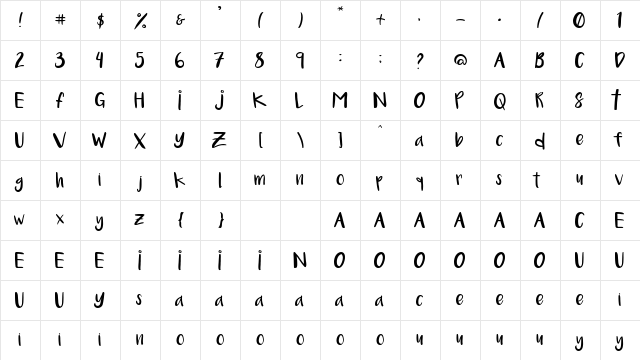
Clegane Regular
Design Context for Clegane Typeface
Clegane is a composed and adaptable typeface that performs quietly and consistently across a wide range of design contexts.